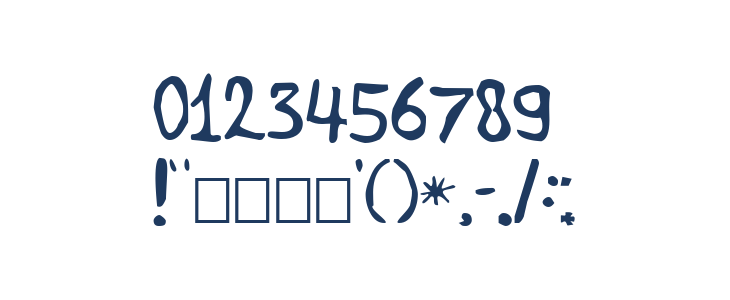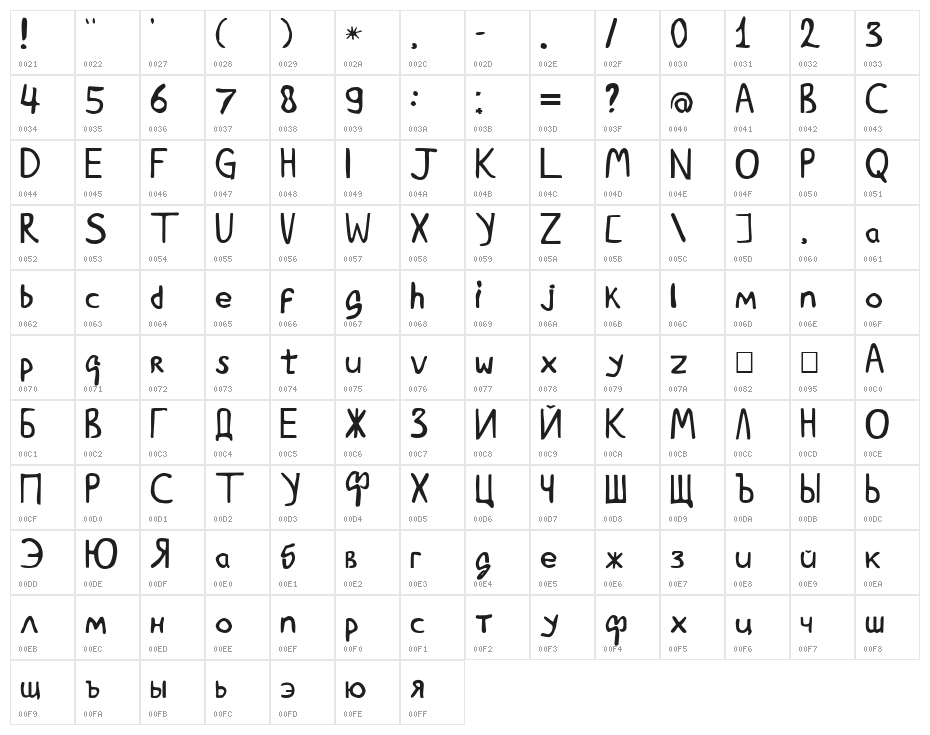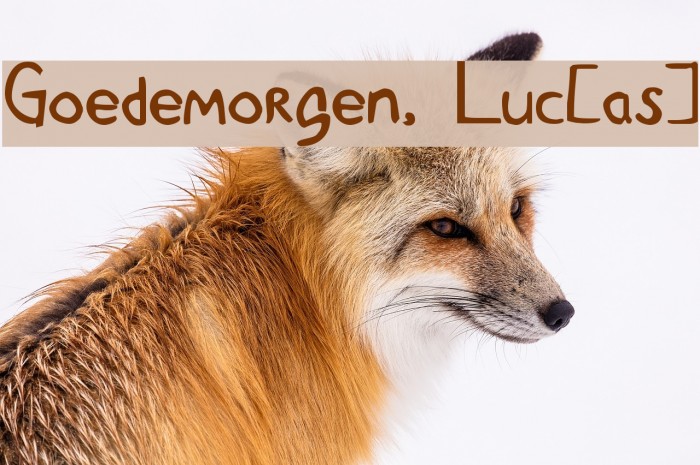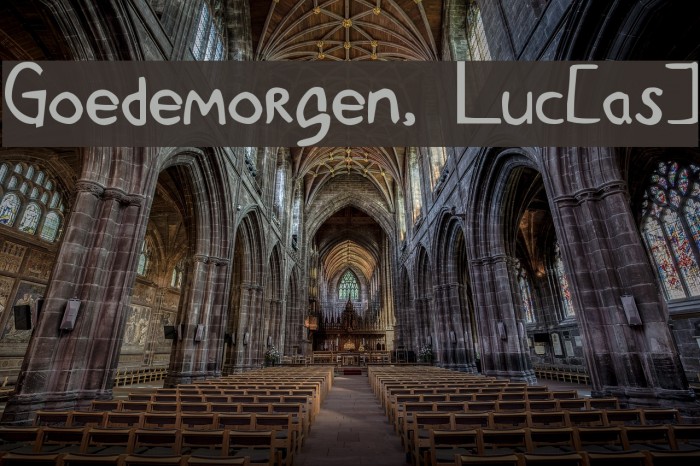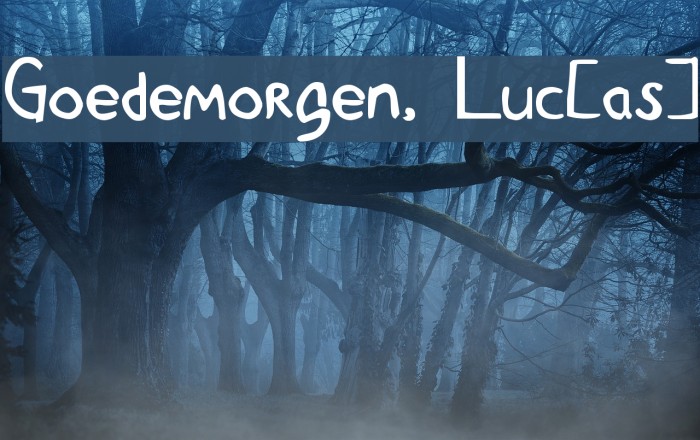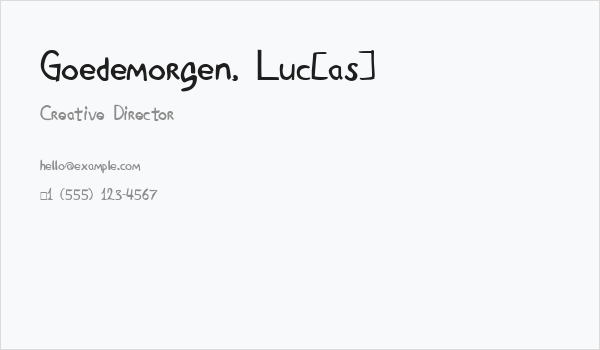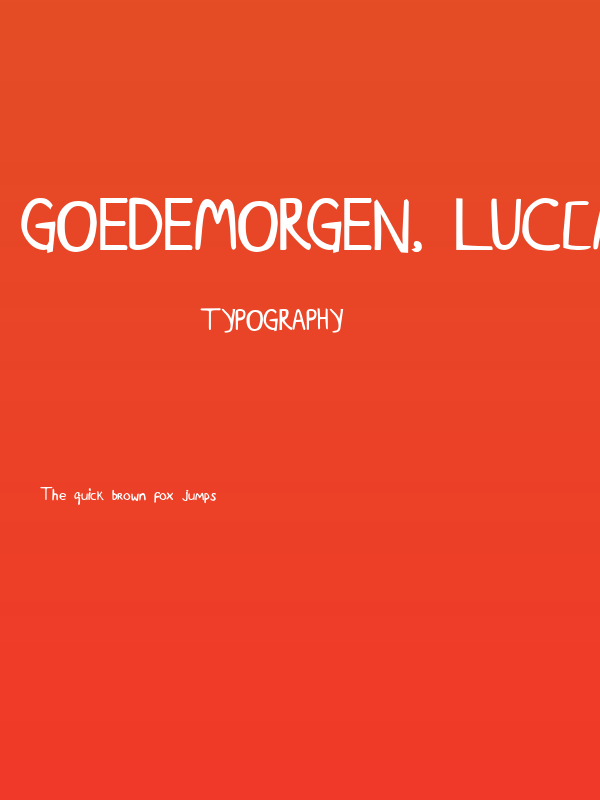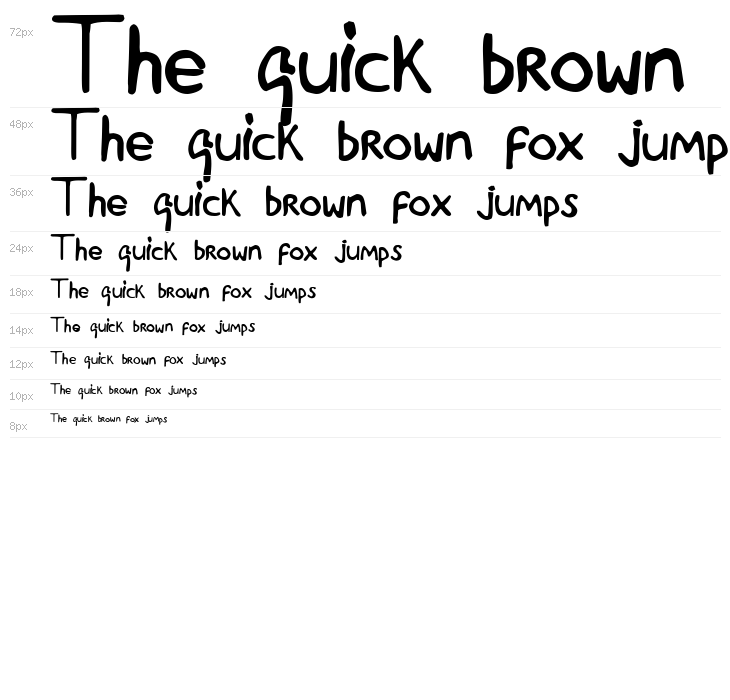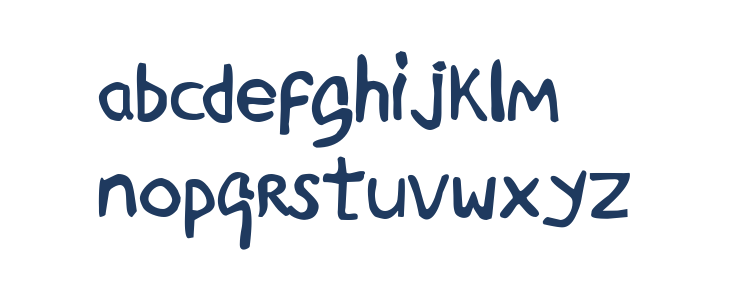
Goedemorgen, Luc[as] Font
Goedemorgen, Luc[as] Description
This font features a playful and informal style, characterized by its hand-drawn appearance. The letters have a casual, slightly irregular form, giving it a whimsical and approachable feel. The uppercase and lowercase letters maintain a consistent style, with rounded edges and varying stroke widths that add to its charm. The numerals and special characters follow the same playful design, making it suitable for creative and informal projects. Its unique style is perfect for adding a personal touch to designs.